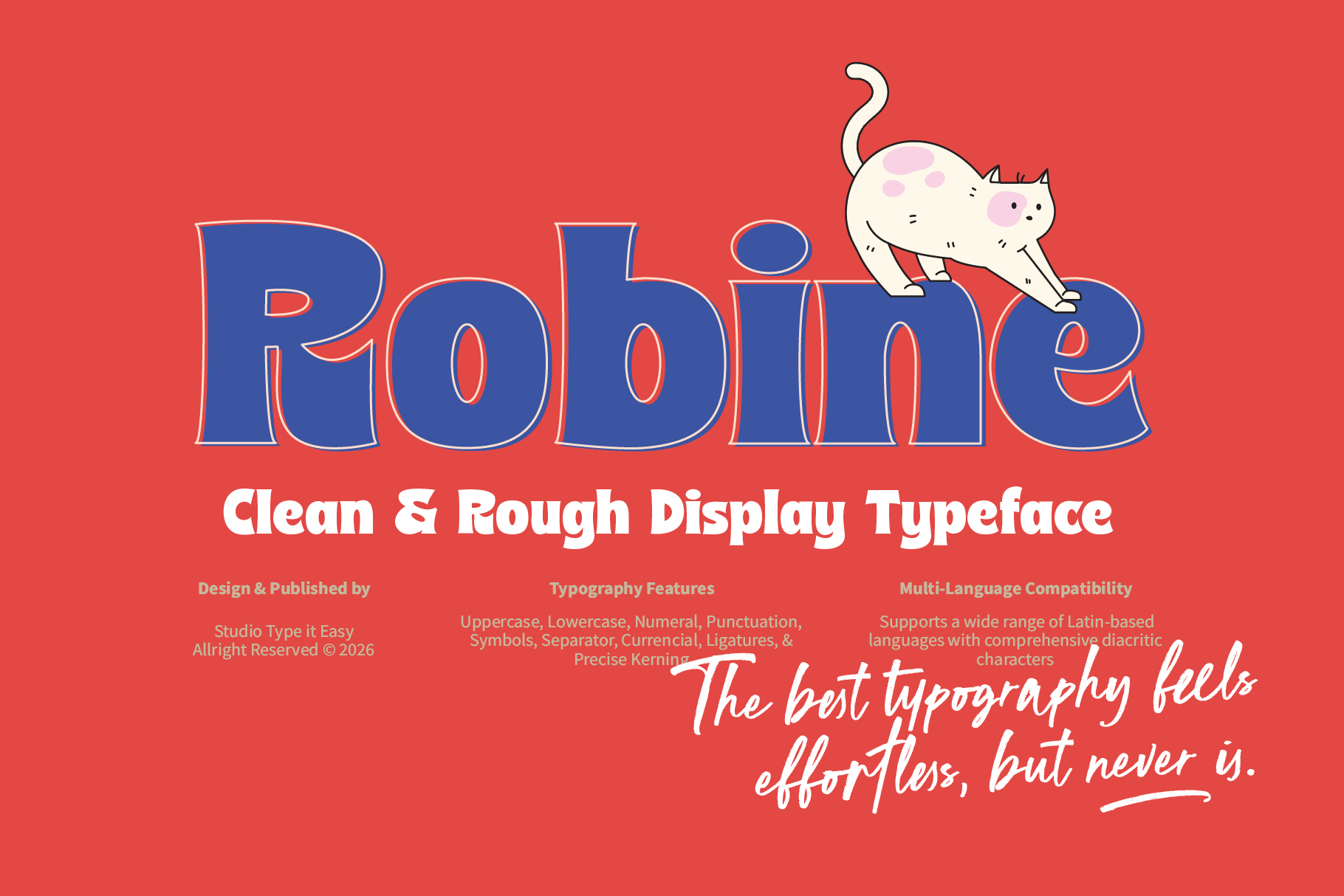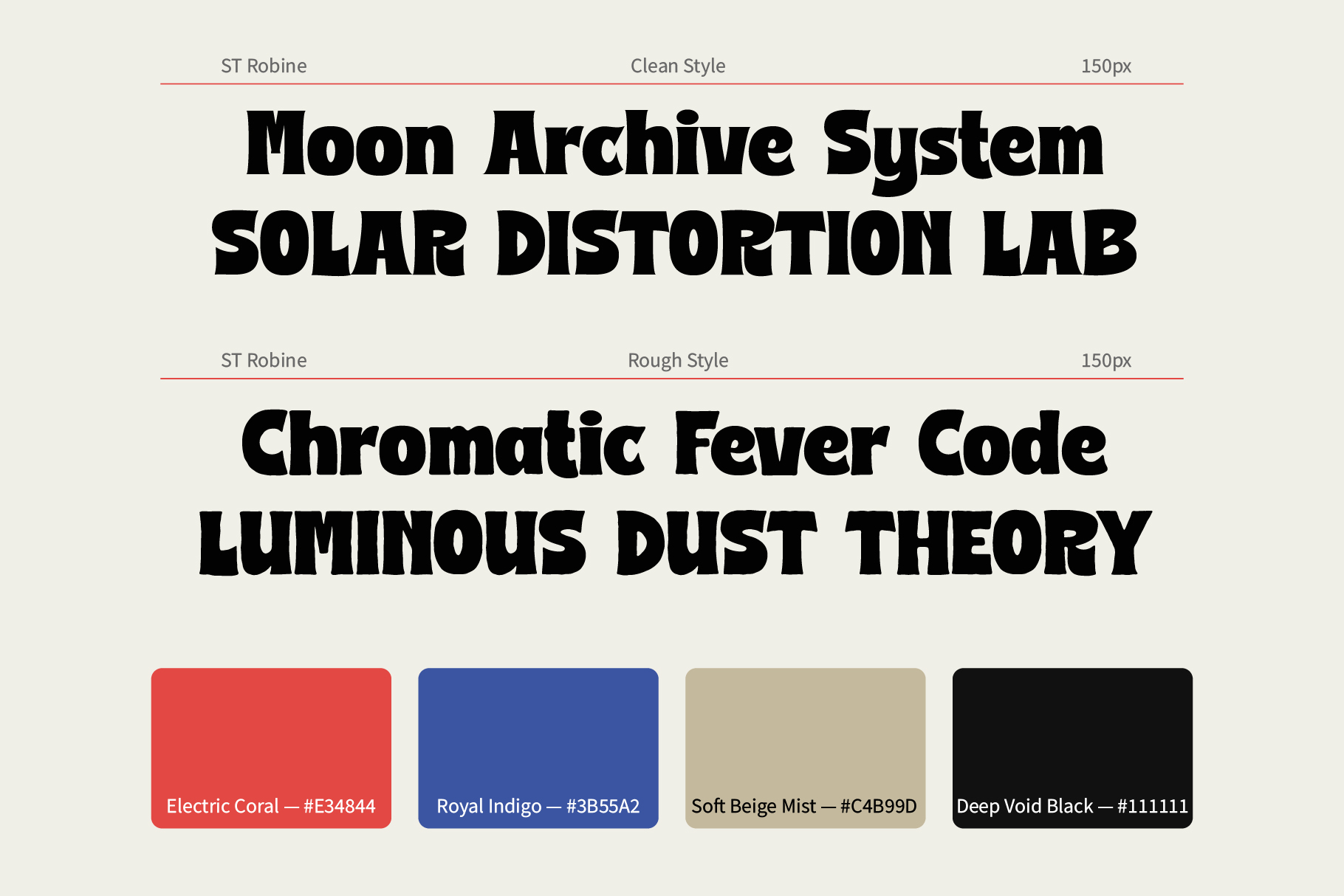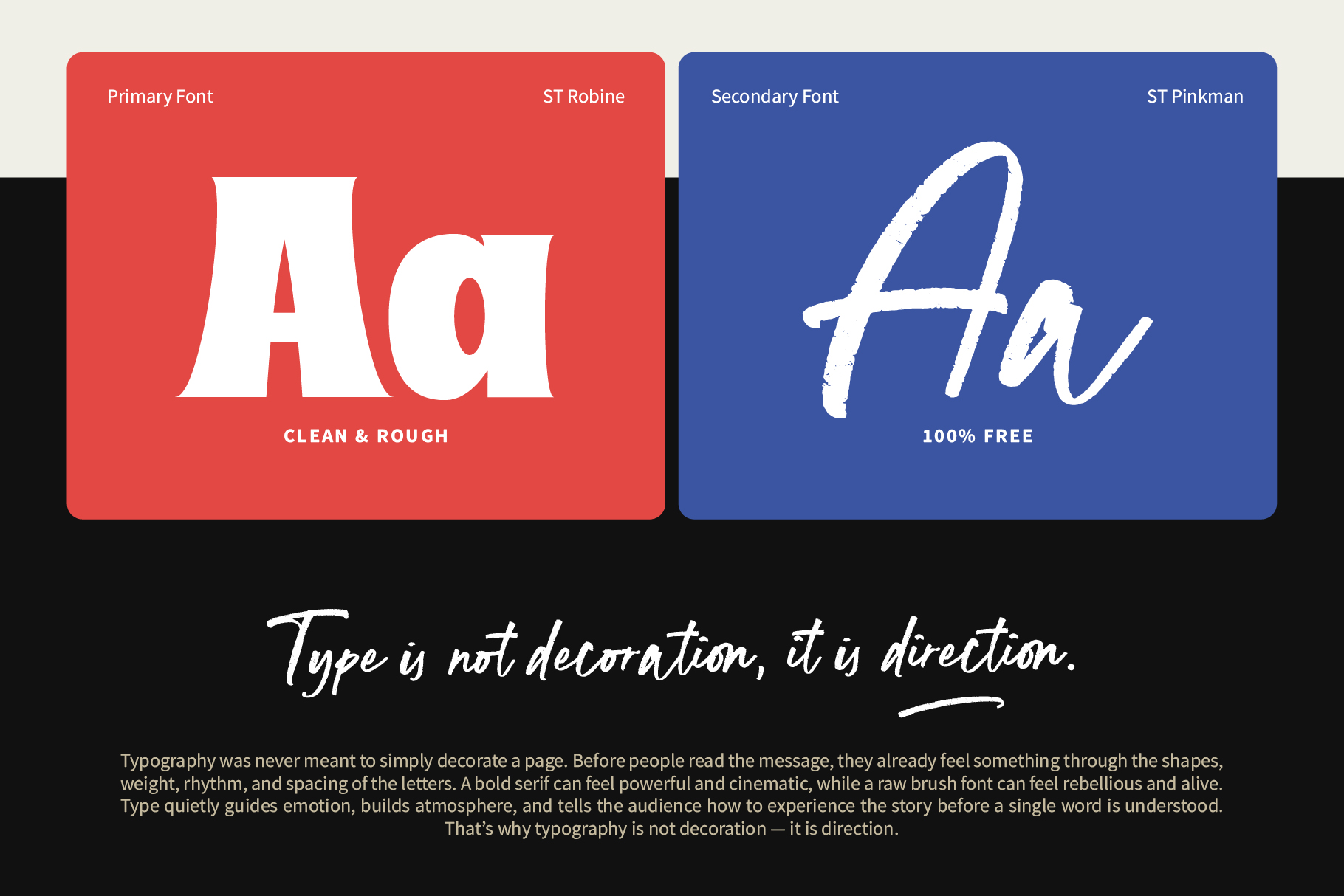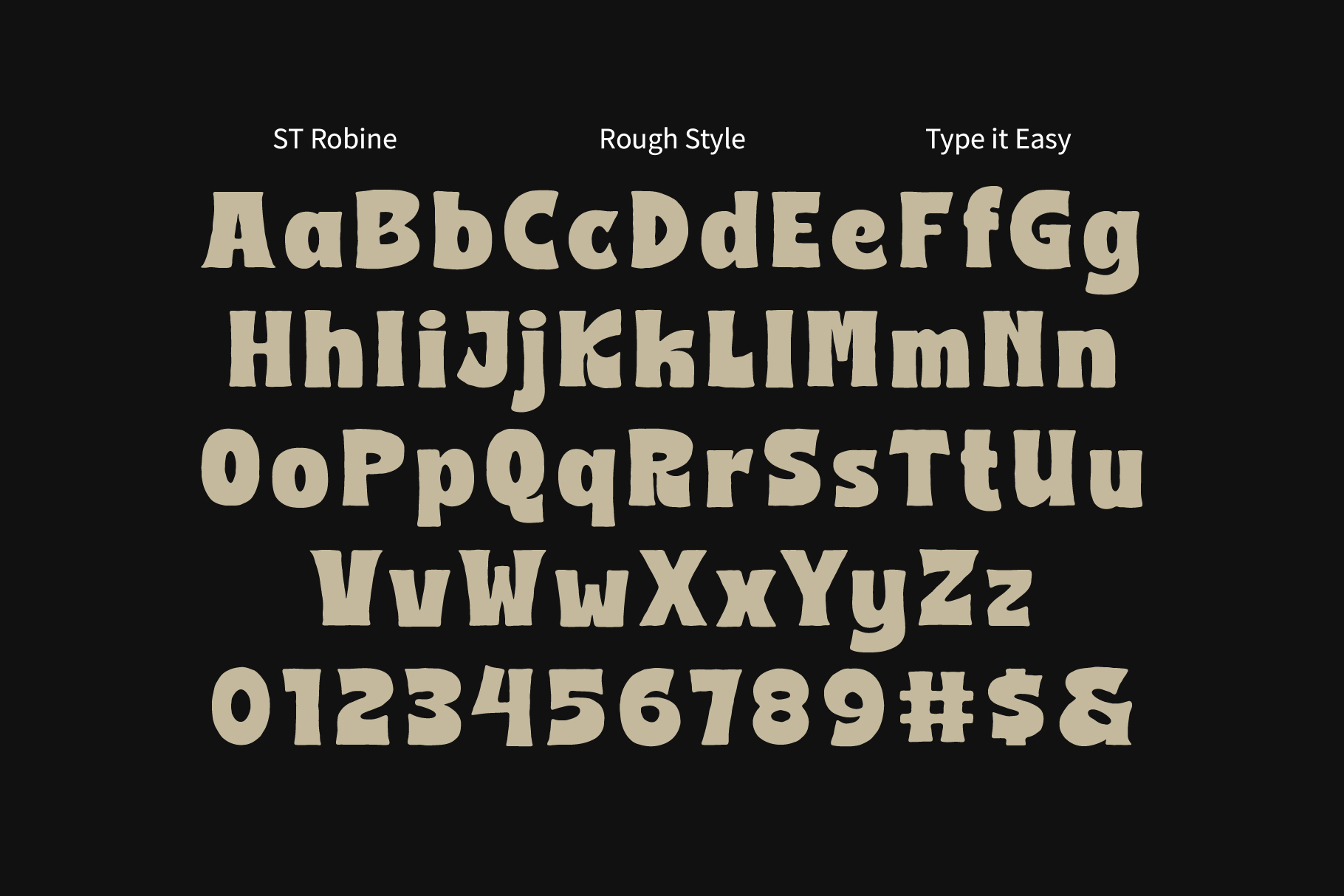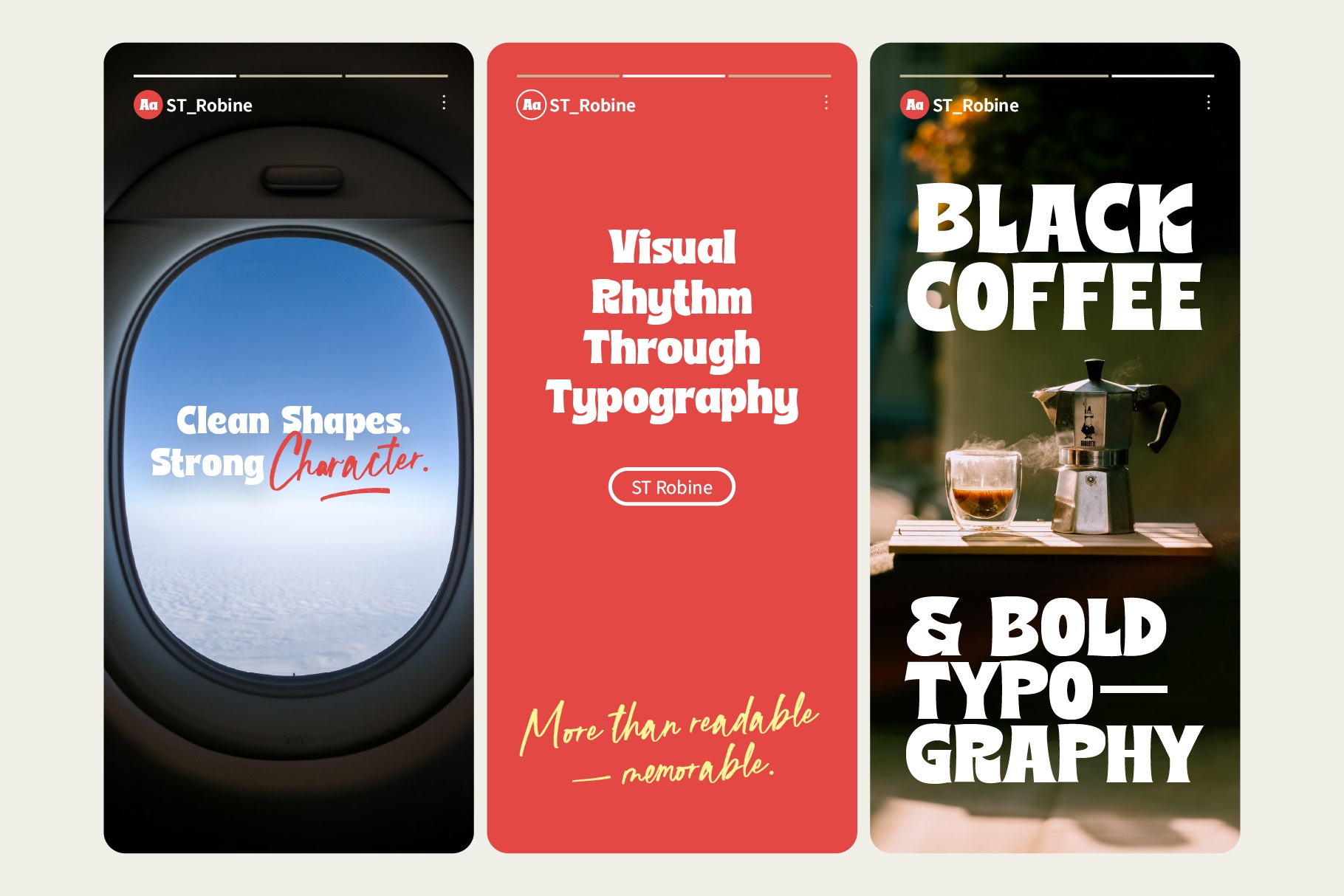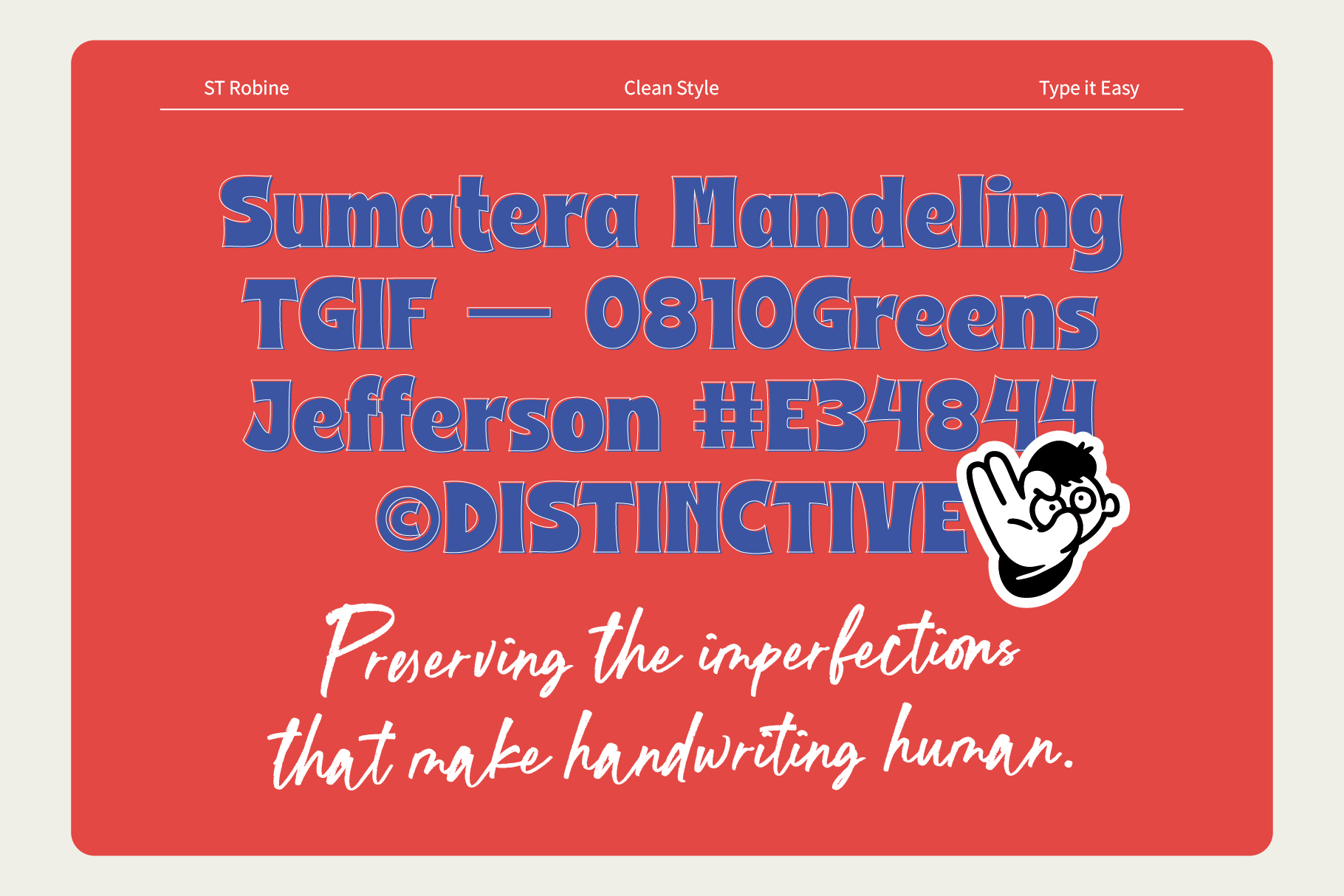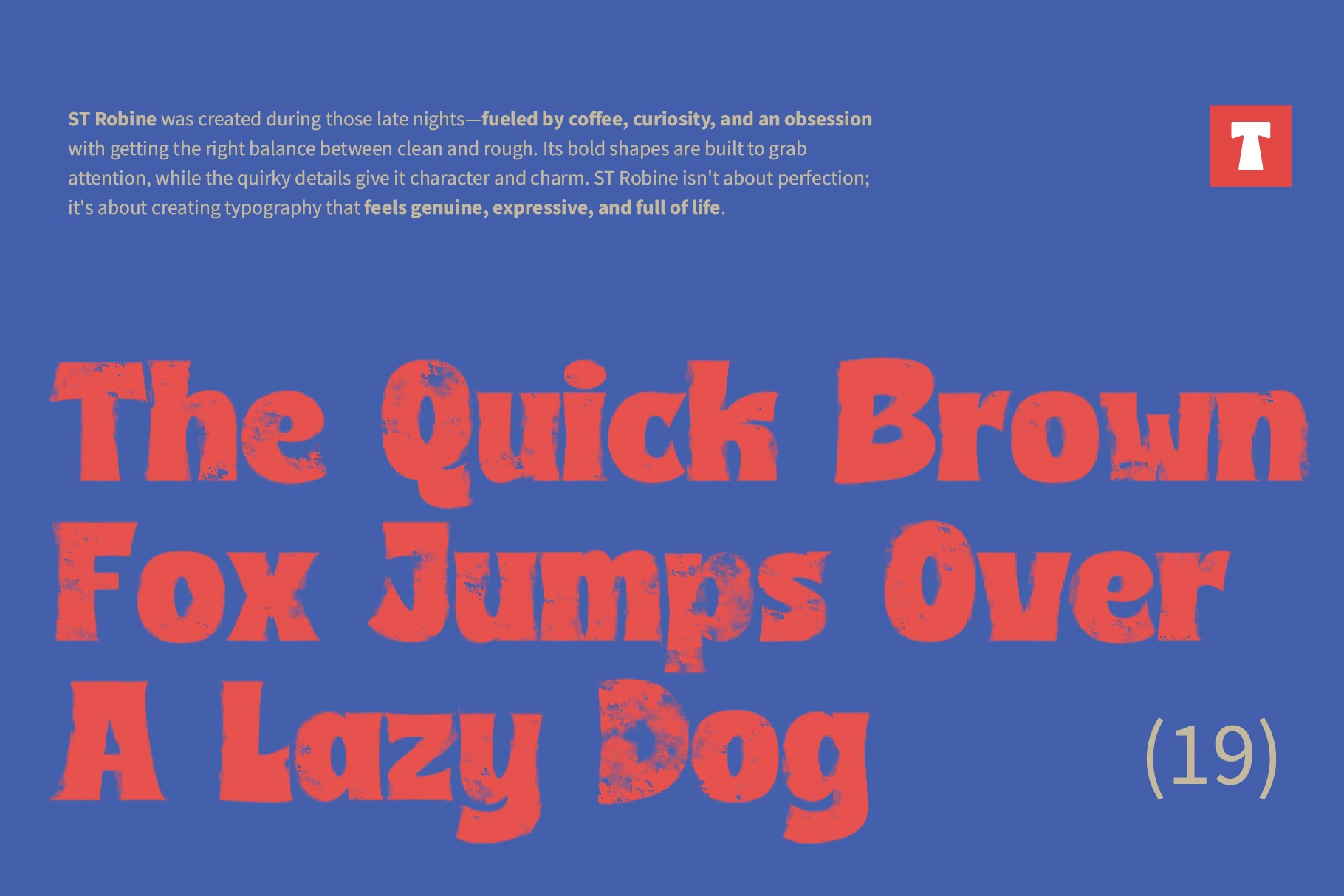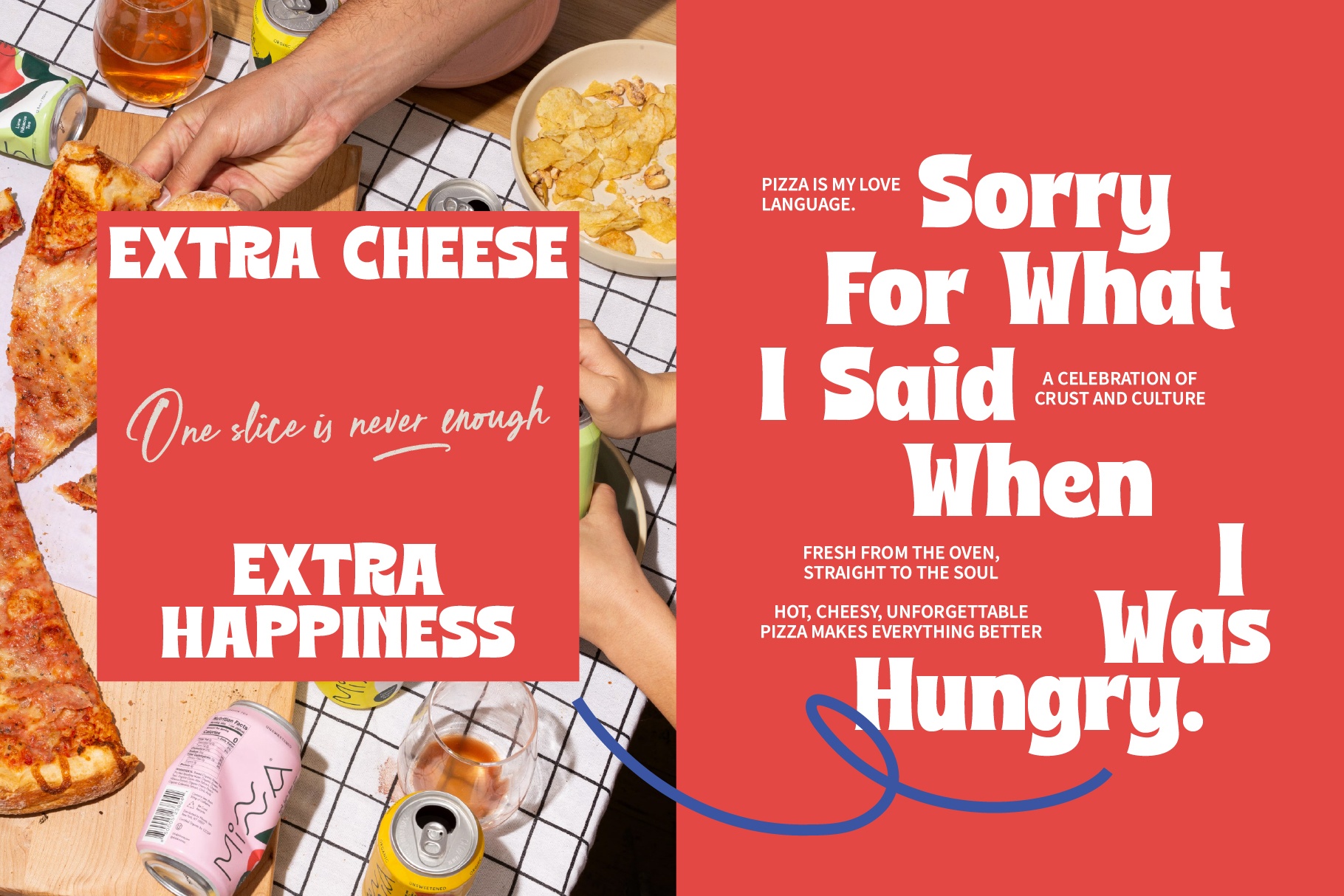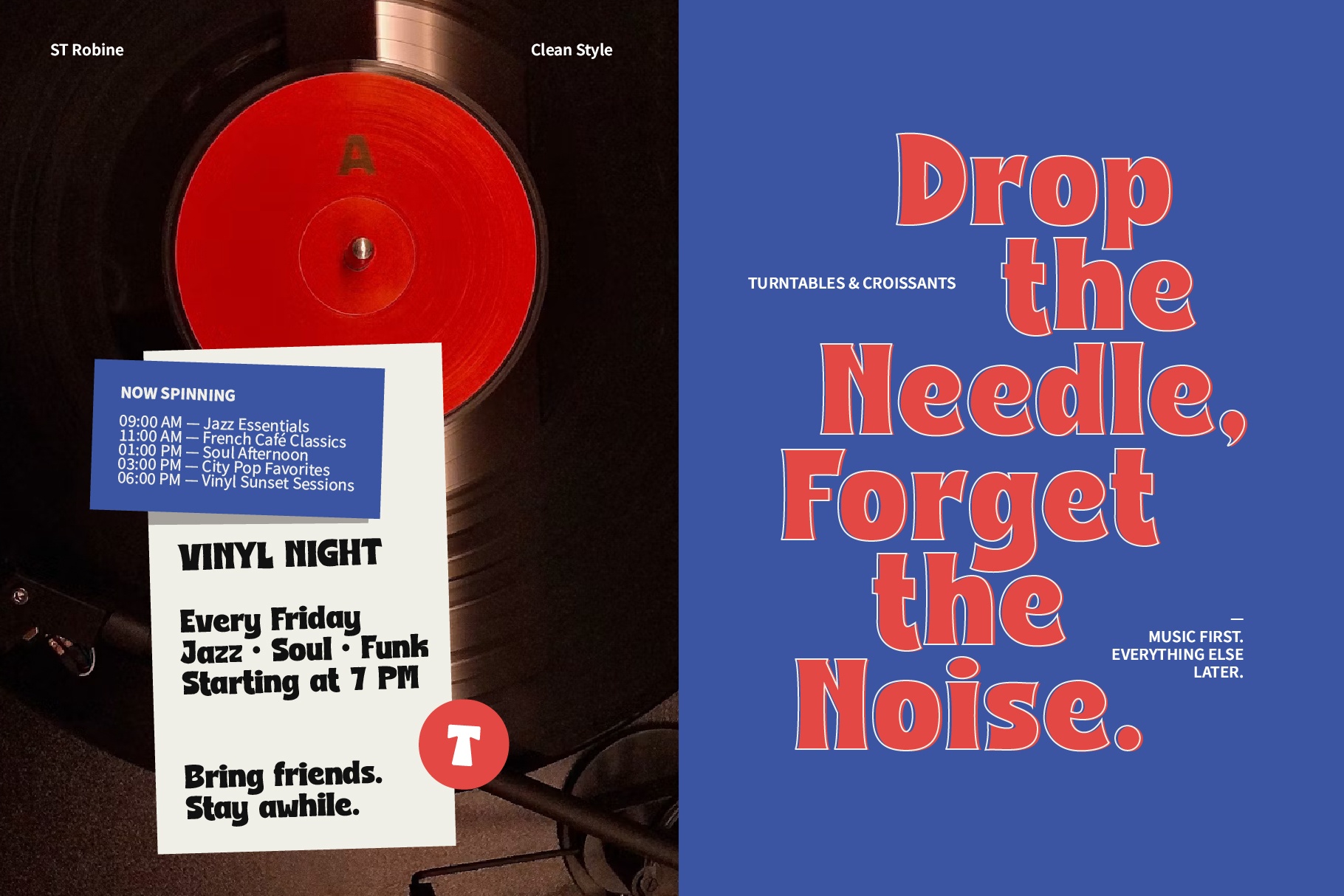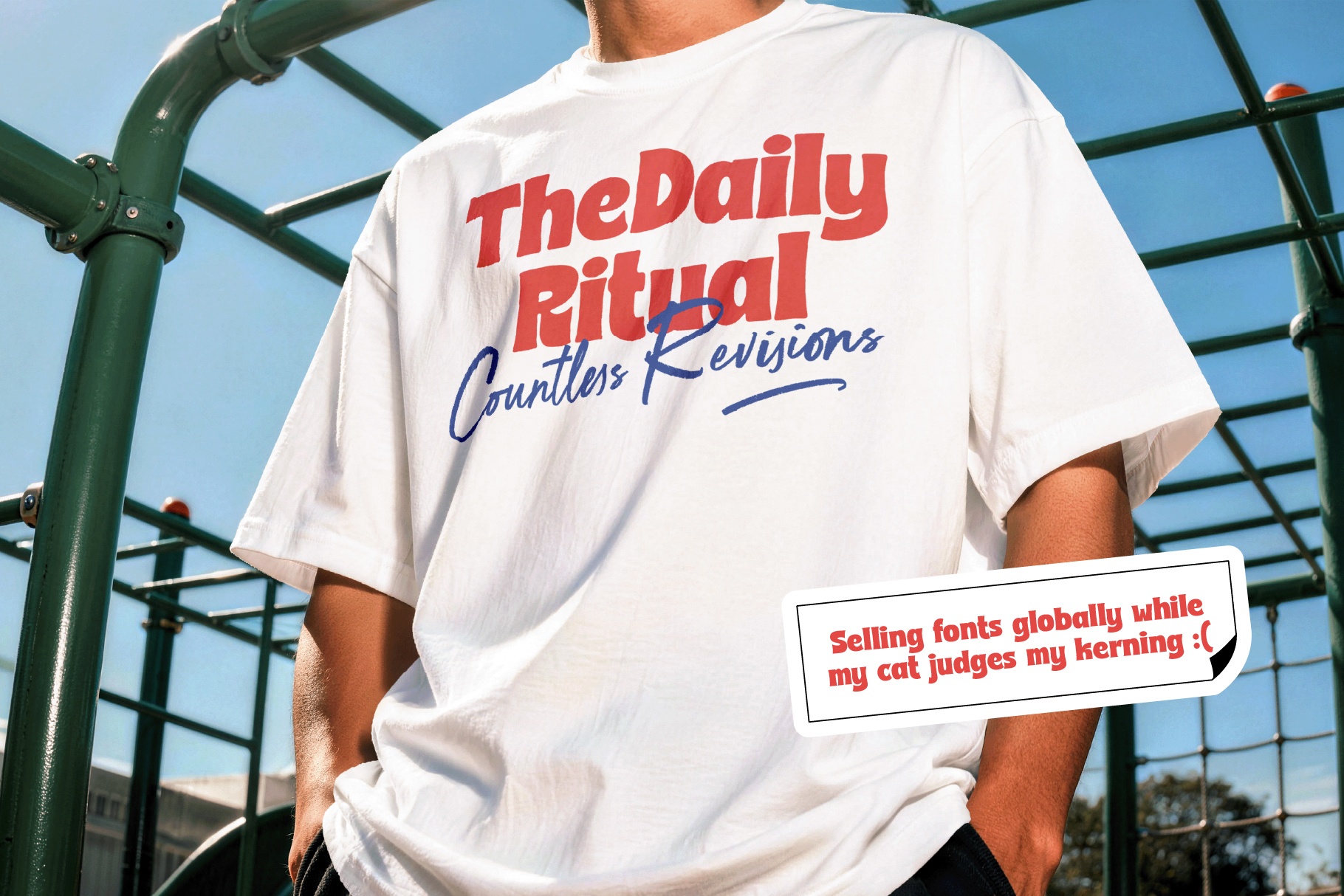
ST Robine - Playful Rough Display Font
Clean
Rough
This playful display typeface pairs bold, clean letterforms with subtle rough details for a handcrafted look that is friendly, confident, and easy to read. Its rounded shapes, organic imperfections, and sturdy rhythm make it a strong choice for expressive headlines, approachable branding, and packaging with real personality.
Robine works well for food and beverage branding, café identities, bakery packaging, children’s products, poster titles, product labels, social media graphics, merchandise, greeting cards, quote layouts, website headers, editorial accents, creative studio branding, and more. The Clean and Rough styles give designers two useful voices: one polished and one with extra handmade texture.
- 2 styles: Clean, Rough
- Display typeface
- Clean-and-rough aesthetic
- Carefully crafted spacing and kerning
- Works for print and digital applications